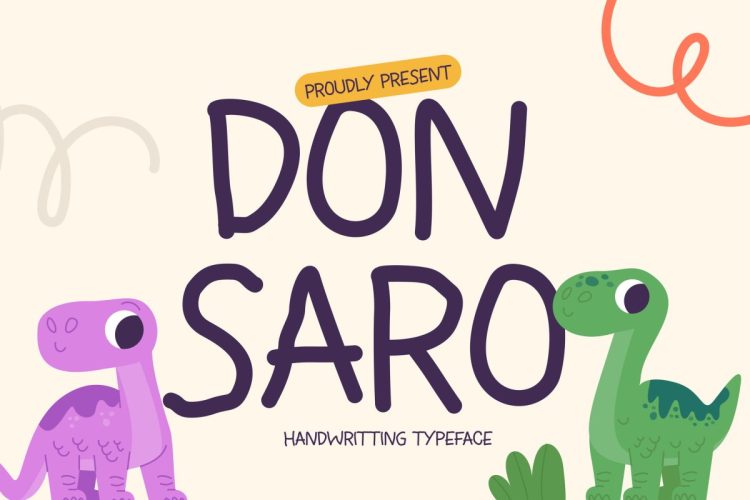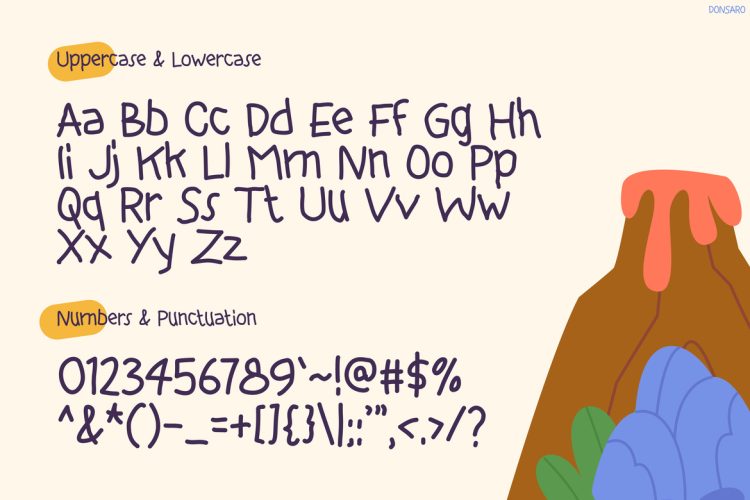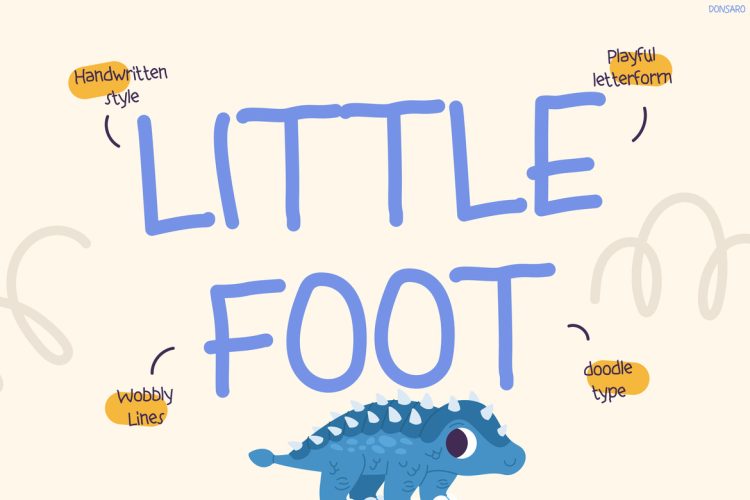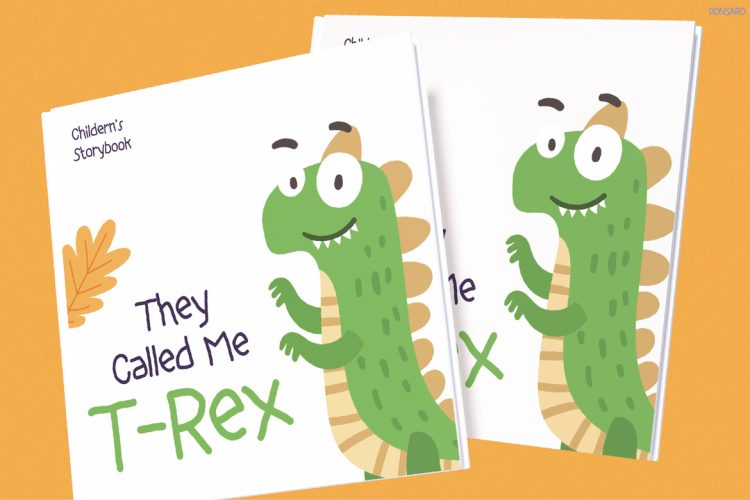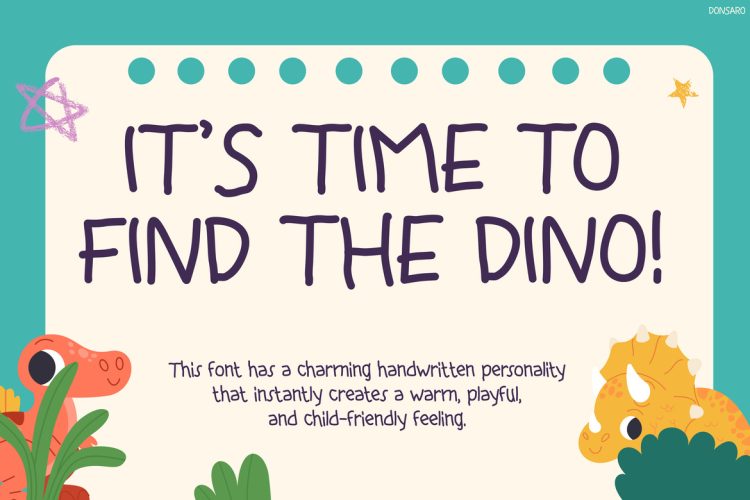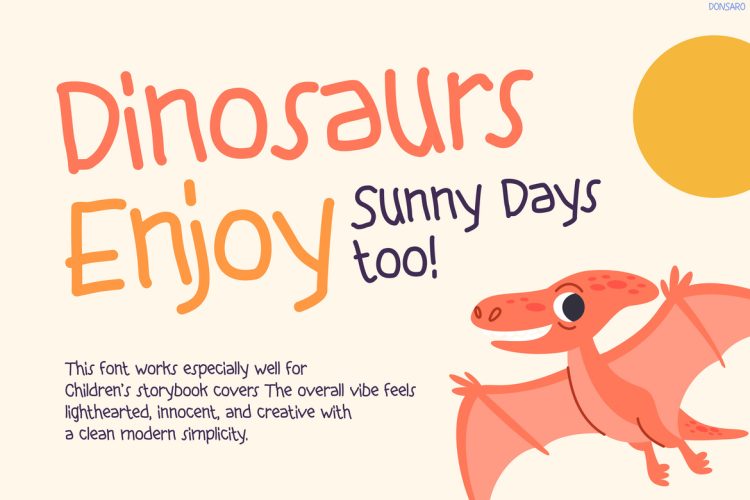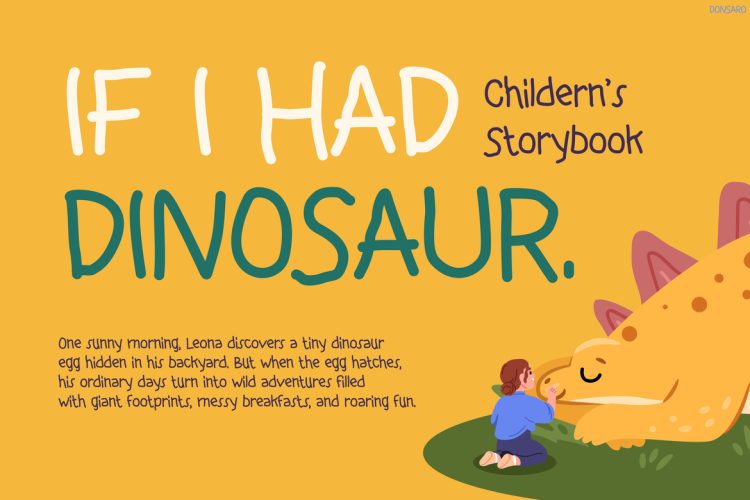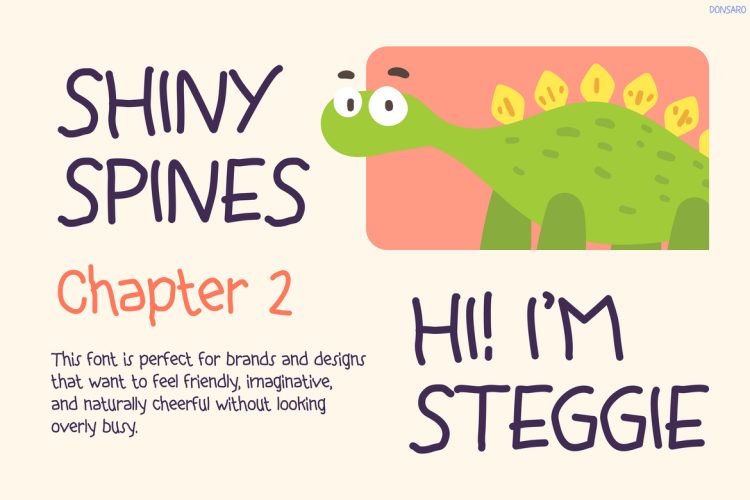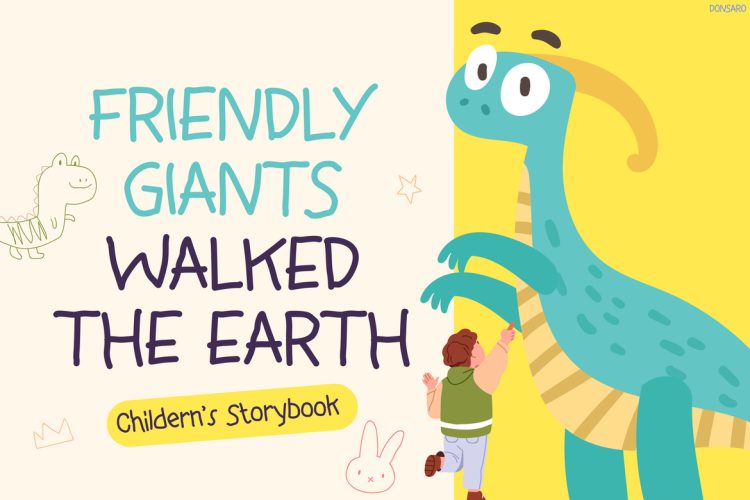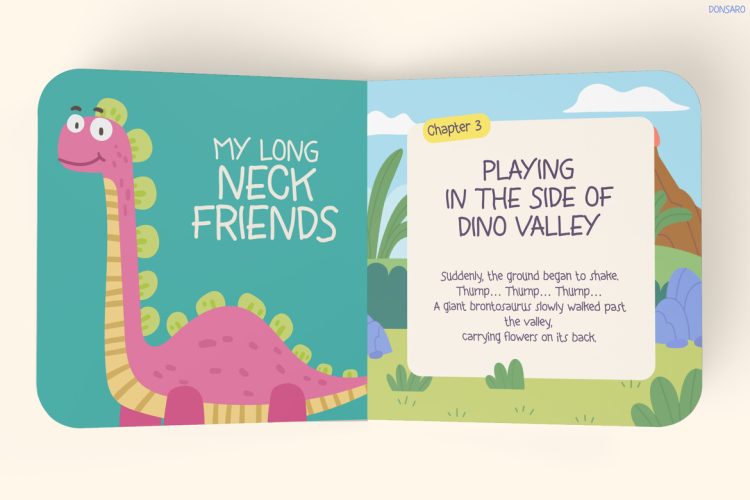
Donsaro โ Cute Dinosaur Kids Font
Kids Font Donsaro is a playful and charming display font inspired by dinosaurs, children’s storybooks, and colorful educational adventures. Designed with soft handwritten strokes and cheerful character shapes, this font instantly creates a friendly and imaginative atmosphere. Moreover, Donsaro combines childlike creativity with excellent readability, making it both adorable and highly functional. Unlike ordinary kids fonts, Donsaro delivers a warm handcrafted aesthetic that feels playful, approachable, and full of personality. As a result, every word looks engaging and inviting, helping designs connect naturally with young audiences. In addition, its whimsical letterforms add a sense of fun and wonder that perfectly complements children’s themes. Therefore, Donsaro becomes the ideal choice for projects that need cute visuals, joyful storytelling, and memorable typography.
Why Kids Font Donsaro Stands Out
Kids Font Donsaro blends playful handwritten charm with modern design versatility. Furthermore, its friendly character shapes help headlines appear lively, expressive, and easy to read. Thanks to its soft and rounded appearance, this font creates a welcoming visual experience that instantly captures attention. At the same time, the clean structure ensures excellent readability across both print and digital media. Besides that, the playful style helps create emotional connections with children, parents, and educators alike. Additionally, Donsaro includes uppercase, lowercase, numbers, punctuation, and multilingual support, allowing designers to build creative and flexible typography layouts with ease. Consequently, this font works beautifully for children’s books, educational materials, toy branding, packaging, posters, and social media content.
Perfect For Who?
Kids Font Donsaro is ideal for graphic designers, authors, publishers, teachers, toy brands, content creators, and creative entrepreneurs who want typography filled with fun and imagination. In particular, this font is highly suitable for:
- Children’s storybooks
- Dinosaur-themed projects
- Educational worksheets and materials
- Toy and game branding
- Kids product packaging
- School posters and classroom decorations
- Social media graphics and YouTube thumbnails
- Birthday invitations and party supplies
Additionally, brands targeting children, family audiences, or educational markets will benefit from its friendly and engaging appearance. Therefore, Donsaro becomes an excellent solution for projects that require both playful personality and professional usability.
Bring Every Story to Life
Kids Font Donsaro is more than just a display font because it transforms simple text into exciting visual adventures. Whether you are designing a children’s book, creating educational content, or building a playful brand, this font helps your work stand out with warmth and creativity. Moreover, its cheerful dinosaur-inspired spirit makes every project feel more fun and memorable. So, if you are searching for a typeface that combines imagination, friendliness, and storytelling charm, Donsaro is the perfect addition to your font collection. Grab it today and let your designs roar with creativity.